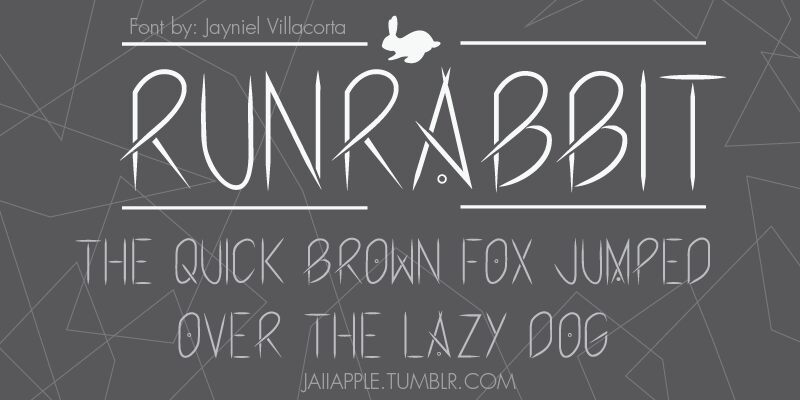
Runrabbit is a free decorative display font with extremely tall, very slender letters and an elegant, theatrical silhouette. Hairline curves meet sudden wedge-shaped strokes, producing dramatic changes in weight across the design. The sharp crossings are its clearest signature.
Its Art Deco inflection makes it a natural fit for fashion branding, fragrance packaging, gallery posters, and magazine covers, especially when the lettering can take on the role of an ornamental frame. Fashion branding is the strongest use, since the extreme proportions resemble custom lettering made for a label or campaign.